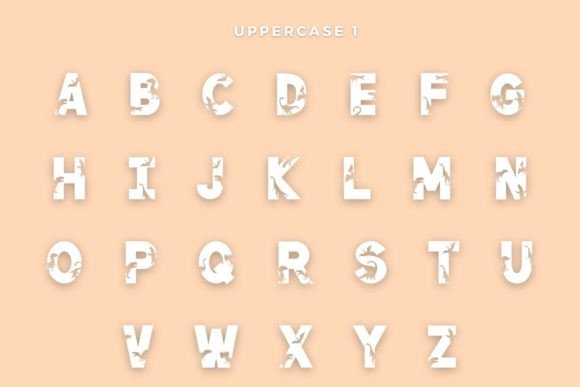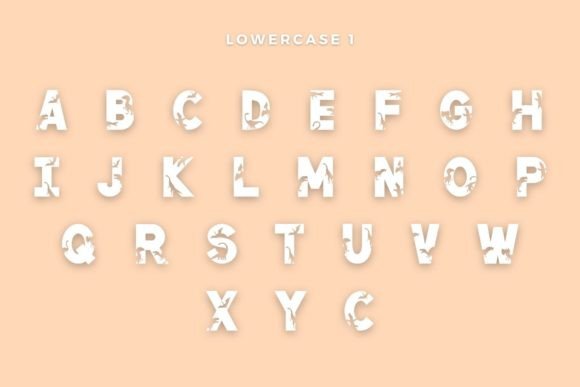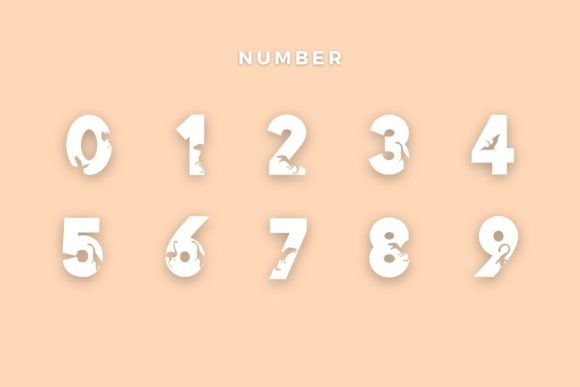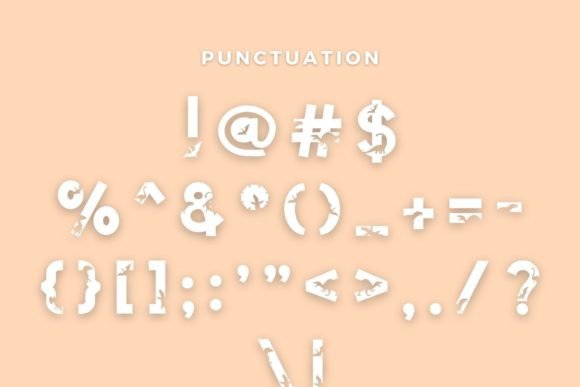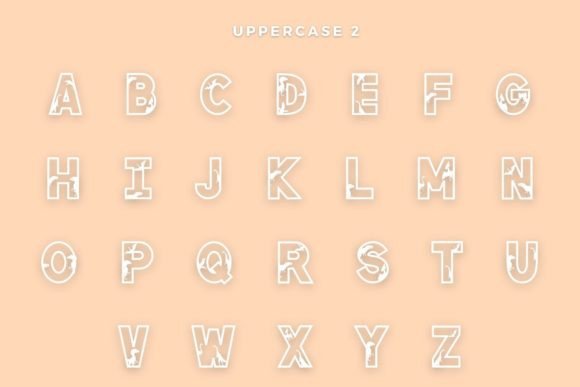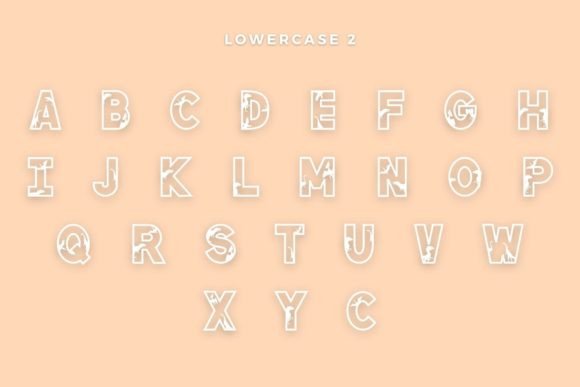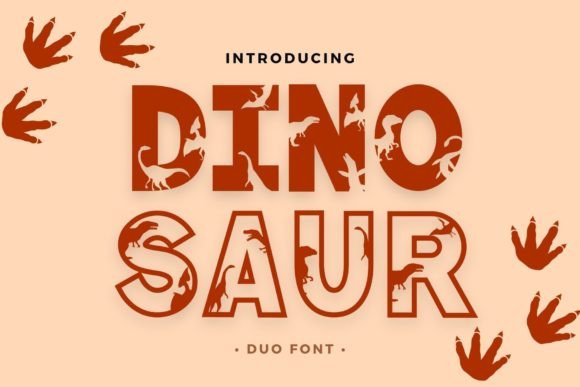
Dinosaur Font: The Perfect Choice for Kids’ Projects and Designs
Are you looking for a font that can add a touch of playfulness and authenticity to your designs, especially for kids’ projects and activities? Look no further than the Dinosaur Font! This cute and fun display font is designed to bring a sense of excitement and adventure to your creations, making it the perfect choice for children’s activity sheets, school projects, and more.
What Makes Dinosaur Font So Special?
The Dinosaur Font is a chunky lettered font that embodies the spirit of playfulness and fun. Its bold and adventurous design makes it perfect for kids’ projects, as it can instantly grab their attention and add a touch of excitement to any design. Whether you’re creating activity sheets, posters, or presentations, this font is sure to make your designs come alive!
Perfect for Children’s Activities and School Projects
The Dinosaur Font is specifically designed with kids in mind. Its playful and fun design makes it perfect for:
- Children’s activity sheets, such as coloring pages, puzzles, and games
- School projects, such as posters, presentations, and reports
- Kids’ party invitations and decorations
- Children’s book titles and headings
Why Choose Dinosaur Font?
There are many reasons why you should choose the Dinosaur Font for your designs:
- Playfulness: The Dinosaur Font is designed to be playful and fun, making it perfect for kids’ projects and activities.
- Authenticity: The font’s bold and adventurous design gives it an authentic feel that’s perfect for kids’ designs.
- Readability: The chunky lettering makes the font easy to read, even for young children.
- Versatility: The Dinosaur Font can be used for a wide range of designs, from activity sheets to posters and presentations.
How to Use Dinosaur Font in Your Designs
Using the Dinosaur Font in your designs is easy! Here are a few tips to get you started:
- Use it as a title font to grab attention and add a touch of playfulness to your designs.
- Pair it with other fonts to create a fun and playful combination.
- Use it to create headings and subheadings to add visual hierarchy to your designs.
If you’re a designer or crafter looking to use the Dinosaur Font in your work, here are a few tips to keep in mind:
- Use the font to create custom illustrations and graphics for kids’ projects.
- Experiment with different font sizes and styles to create visual interest.
- Pair the font with other design elements, such as images and textures, to create a cohesive look.
- Consider creating a custom illustration or graphic using the font to add a personal touch to your designs.
The Dinosaur Font is a fun and playful display font that’s perfect for kids’ projects and activities. Its bold and adventurous design makes it a great choice for designers and crafters looking to add a touch of excitement to their creations. With its readability, versatility, and playfulness, the Dinosaur Font is sure to become a favorite in your design toolkit.